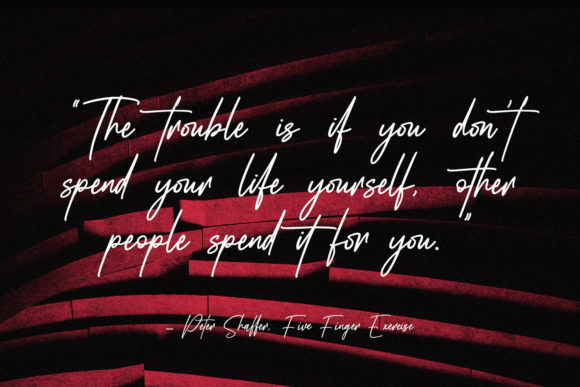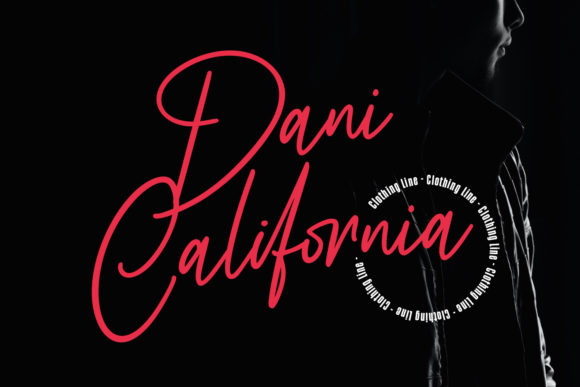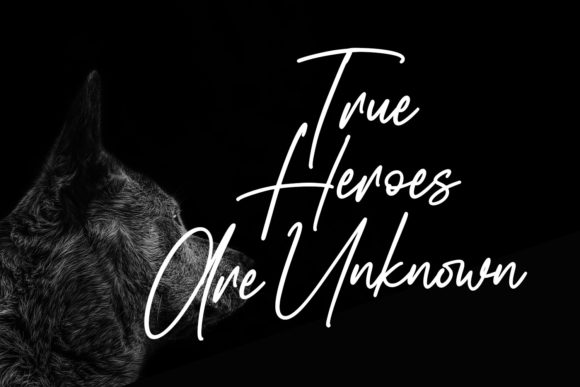
Introduction to Lafoyettes Script Font
As designers, we’ve all been there – staring at a blank canvas, trying to bring a creative project to life. But sometimes, all it takes is the right font to spark that initial spark of inspiration. For me, it was the Lafoyettes Script Font that made all the difference. Its relaxed and adaptable handwritten style instantly breathed new life into my design, and I knew I had to share it with the world.
Whether you’re working on a free download, a high-quality brochure, or even a design project with a transparent background, Lafoyettes Script Font is a valuable resource that’s sure to elevate your creations. Its versatility makes it a perfect addition to any designer’s library, and its high-quality design ensures that it will remain a trusted companion for years to come.
Key Features of Lafoyettes Script Font
- Unique Handwritten Style: Lafoyettes Script Font features a beautiful, elegant, and handwritten style perfect for creative projects and design resources.
- High-Quality Design: This font is designed with high-quality in mind, making it ideal for use in various design projects, from logos to posters, and more.
- Transparent Background: Lafoyettes Script Font has a transparent background, allowing designers to easily layer it over images or other design elements.
- Resolution: This font is designed at 300 DPI, making it suitable for use in high-resolution designs, such as posters, billboards, and other large-scale projects.
- Perfect for Creative Projects: Lafoyettes Script Font is an excellent choice for designers working on creative projects, including wedding invitations, menus, and other decorative items.
Honest Review: Lafoyettes Script Font
I recently had the chance to work with Lafoyettes Script Font for a creative project, and I must say, it was a delightful experience. This font is a true gem for designers who love elegant, cursive scripts. ✨
- High-quality design: Lafoyettes Script Font boasts exceptional detail and texture, making it perfect for various creative projects.
- Transparent background: This feature allows for seamless integration with various design elements, giving designers complete control over the final output.
However, there are a few limitations to keep in mind. ⚠️
- Limited font sizes: While the font looks great at standard sizes, it may not be the best choice for very large or very small text.
- No bold or italic variants: If you need to add emphasis to certain words or phrases, you may need to look elsewhere for bold or italic versions of this font.
Overall, I’m thoroughly impressed with Lafoyettes Script Font. It’s a fantastic addition to any design library, and its high quality and transparent background make it a joy to work with. If you’re looking for a beautiful script font for your next creative project, give Lafoyettes Script Font a try – I think you’ll love it! ✨
The Lafoyettes Script Font is a versatile design resource that can be used in a variety of creative projects, including wedding invitations, quotes, and social media graphics. It’s also a great choice for logos and branding materials. With its elegant and sophisticated look, this font is perfect for designers who want to add a touch of elegance to their work.